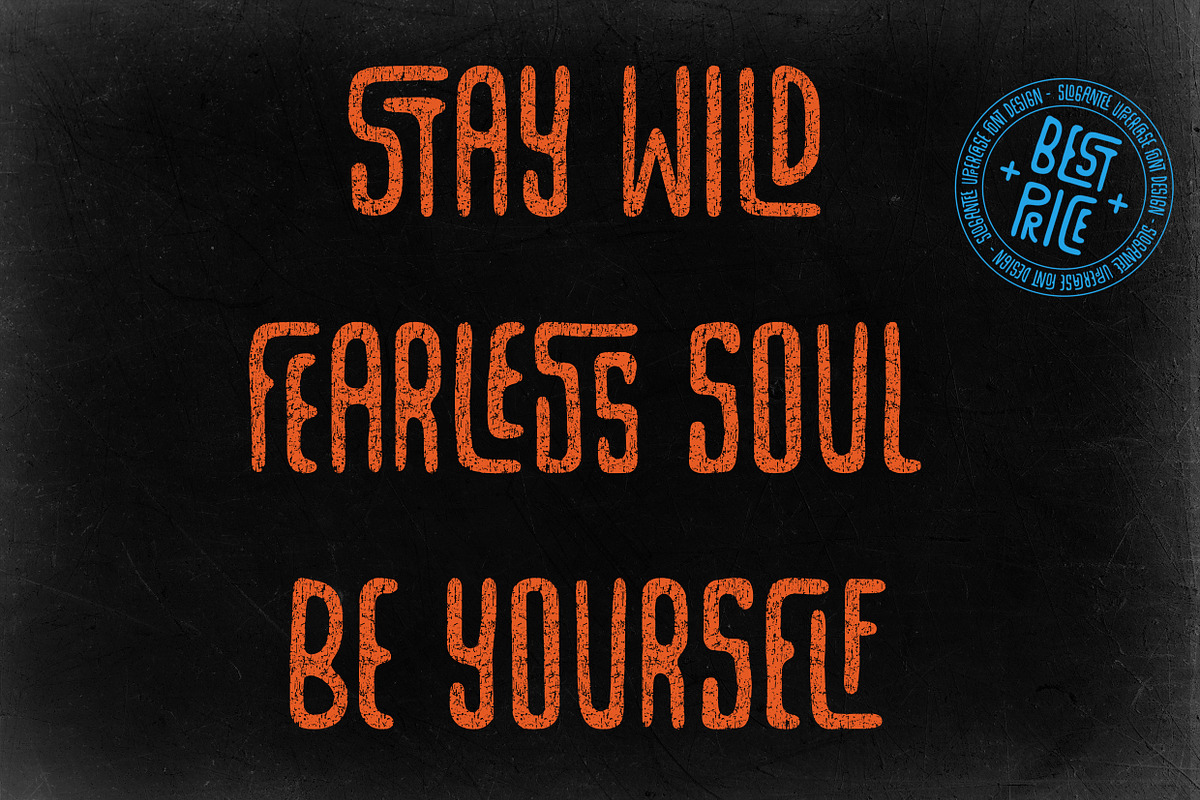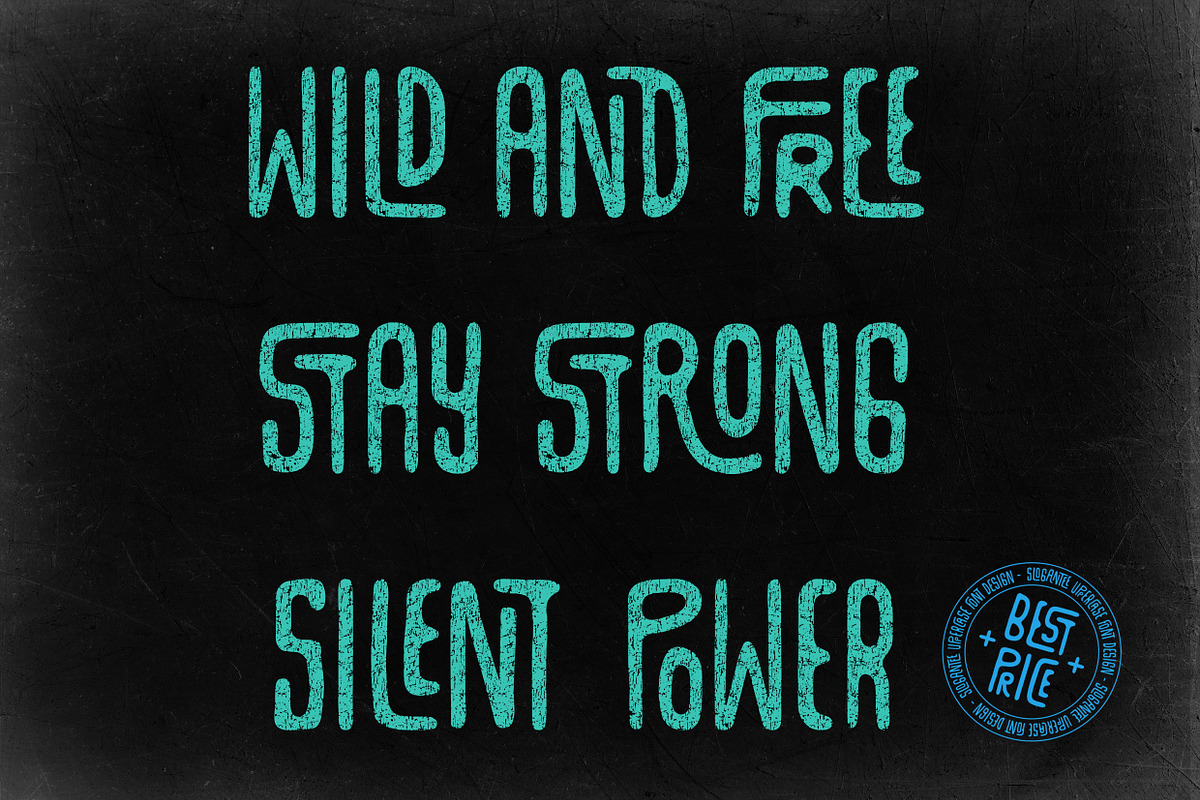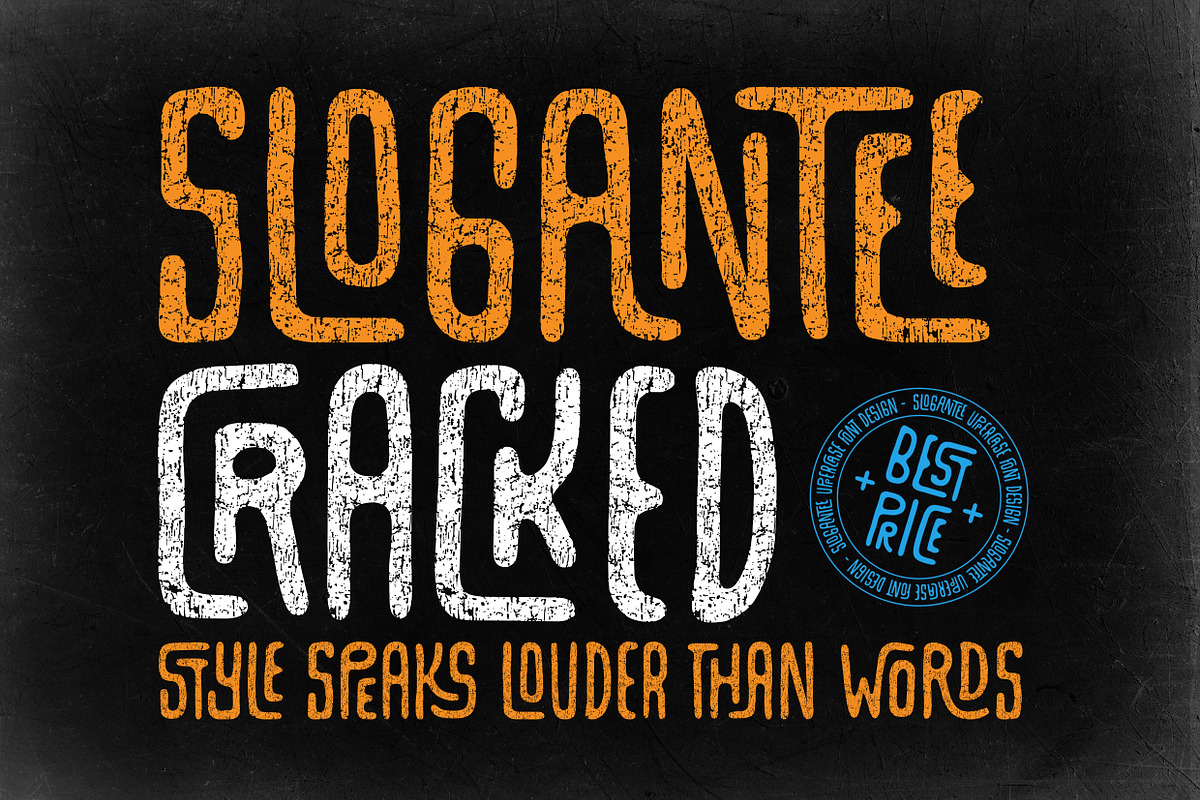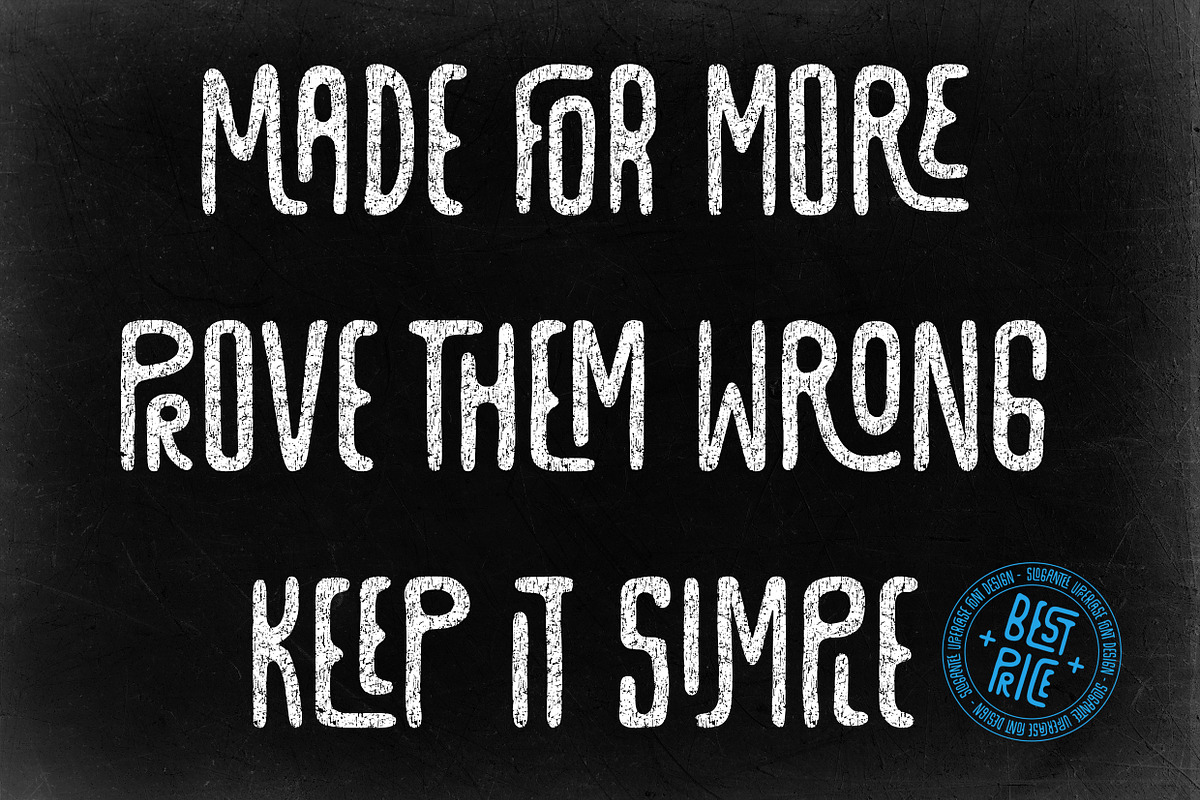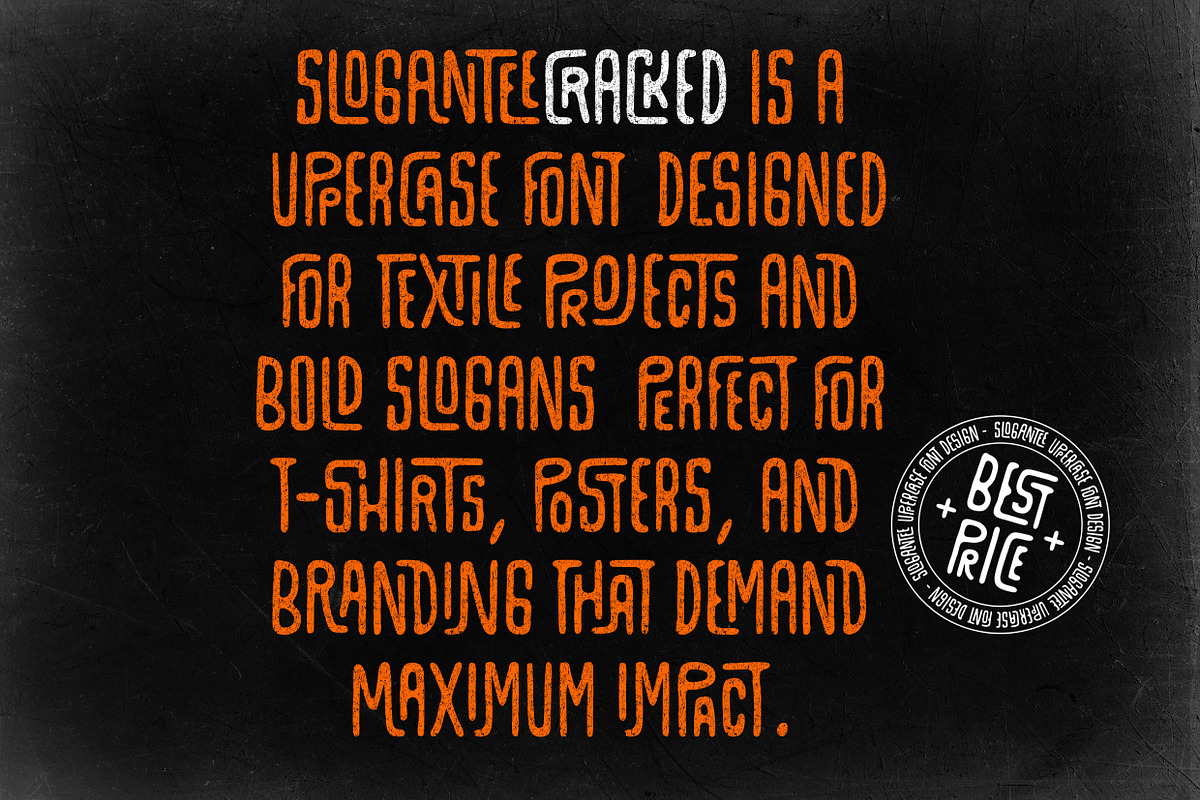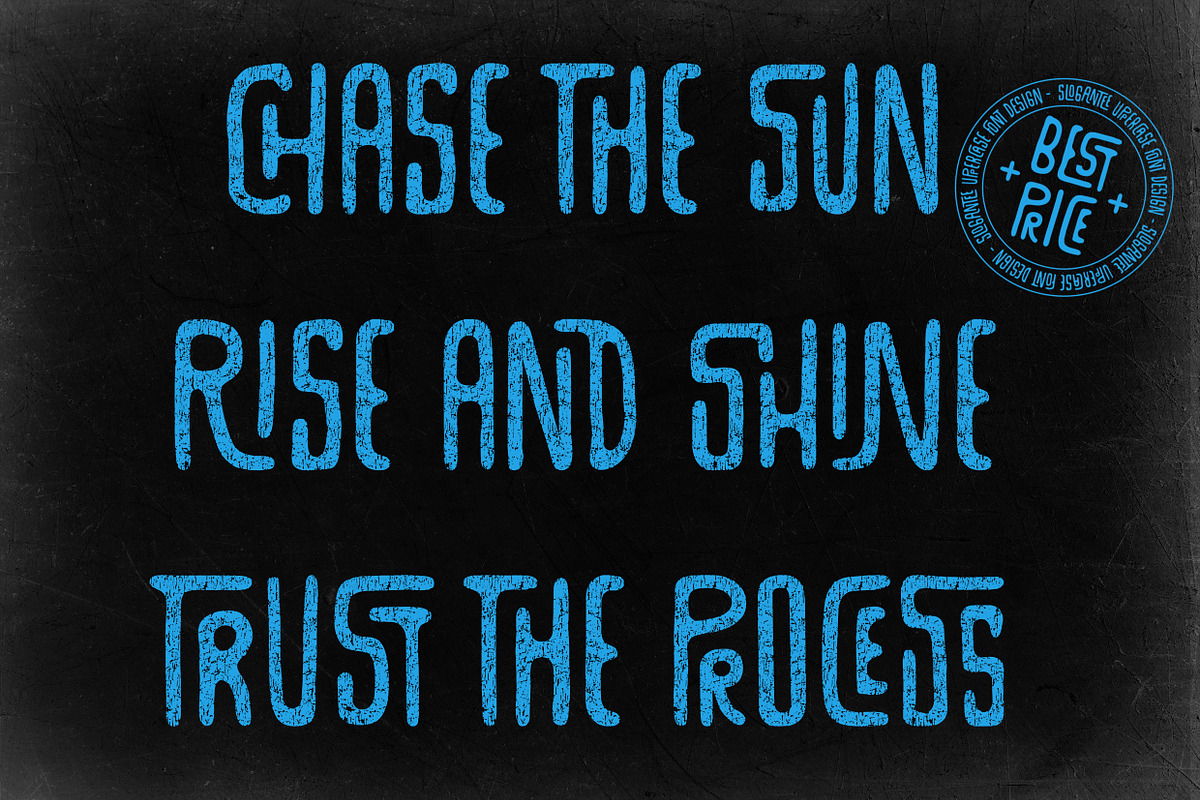
SloganTee Cracked Uppercase font
SloganTee Cracked Uppercase Font brings bold, fractured lettering with a raw, modern edge. Perfect for fashion graphics, streetwear branding, bold posters, and creative typography projects. Includes .OTF and .TTF formats for smooth use across all design platforms.